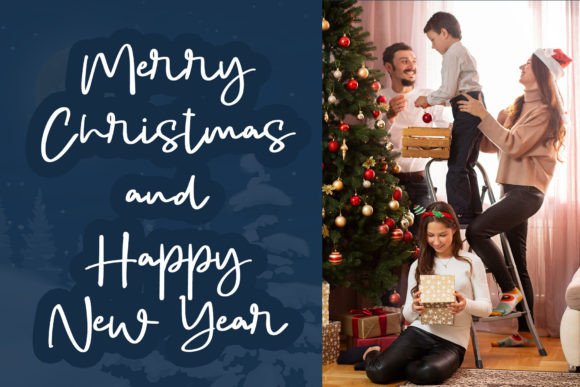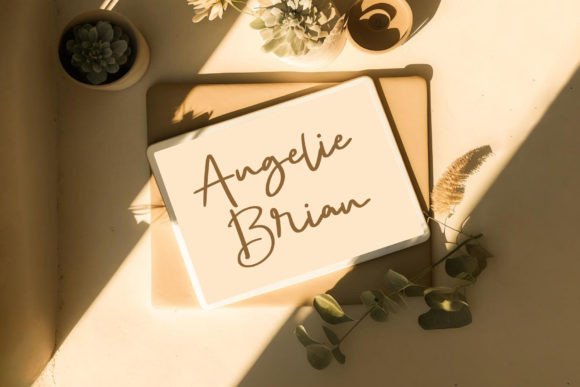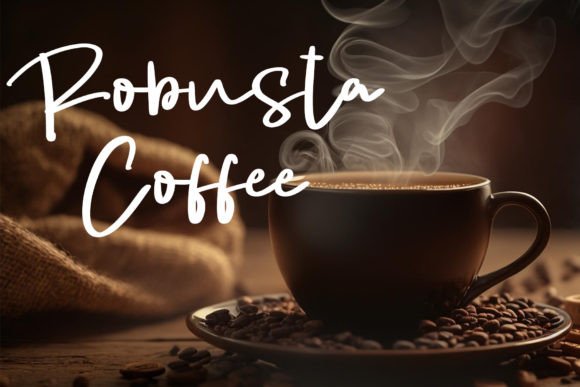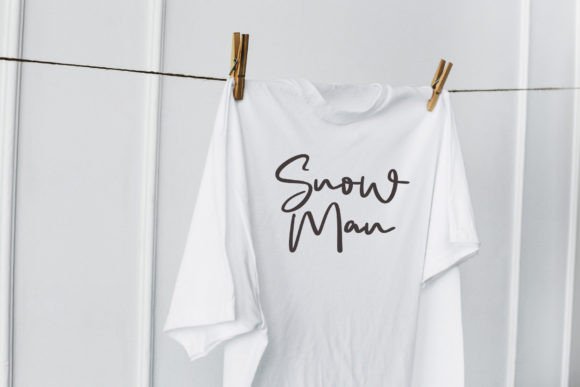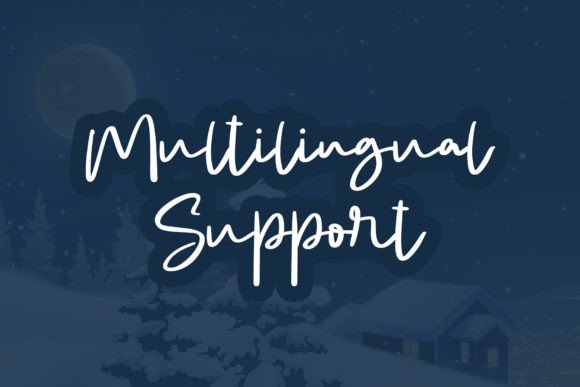
Introducing Angela Christmas Font: The Perfect Blend of Elegance and Whimsy
Are you on the hunt for a font that exudes class, sophistication, and a dash of playfulness? Look no further than Angela Christmas Font! This charming handwritten font is perfect for designers and crafters seeking to add a touch of elegance and modernity to their projects. With its unique blend of simplicity and quirkiness, Angela Christmas Font is sure to become your go-to choice for a wide range of design applications.
The Characteristics of Angela Christmas Font
Angela Christmas Font boasts a classy, elegant, and modern look that sets it apart from other fonts. Its simple yet quirky design makes it an excellent choice for various projects, including:
• Logos and branding: Create a lasting impression with a font that is both sophisticated and memorable.
• Invitations and stationery: Add a touch of elegance to your paper goods with a font that is both refined and whimsical.
• Wedding designs: Make your wedding materials truly special with a font that exudes romance and sophistication.
• Social media posts: Stand out on social media with a font that is both modern and eye-catching.
Why Choose Angela Christmas Font?
So, what makes Angela Christmas Font so special? Here are just a few reasons why designers and crafters are falling in love with this beautiful font:
• Versatility: Angela Christmas Font is incredibly versatile, making it suitable for a wide range of design applications.
• Elegance: This font exudes elegance and sophistication, making it perfect for high-end designs.
• Whimsy: With its quirky and playful design, Angela Christmas Font adds a touch of whimsy to any project.
• Modernity: This font has a distinctly modern feel, making it perfect for designers looking to create contemporary designs.
Tips for Using Angela Christmas Font
To get the most out of Angela Christmas Font, here are a few tips to keep in mind:
• Pair it with other fonts: Combine Angela Christmas Font with other fonts to create a unique and visually appealing design.
• Experiment with colors: Try pairing Angela Christmas Font with different colors to add depth and interest to your design.
• Use it for headings and titles: Angela Christmas Font is perfect for headings and titles, where its elegance and whimsy can really shine.
Who Can Benefit from Angela Christmas Font?
Angela Christmas Font is perfect for a wide range of designers and crafters, including:
• Graphic designers: Add a touch of elegance and whimsy to your designs with this beautiful font.
• Stationery designers: Create beautiful paper goods with Angela Christmas Font.
• Wedding designers: Make your wedding materials truly special with this romantic and sophisticated font.
• Crafters: Use Angela Christmas Font to add a personal touch to your crafts, such as cards, gift tags, and more.
In conclusion, Angela Christmas Font is a versatile and beautiful font that is perfect for designers and crafters seeking to add a touch of elegance and whimsy to their projects. With its simple yet quirky design, this font is sure to become a staple in your design toolkit. So why wait? Download Angela Christmas Font today and start creating stunning designs that will leave a lasting impression!